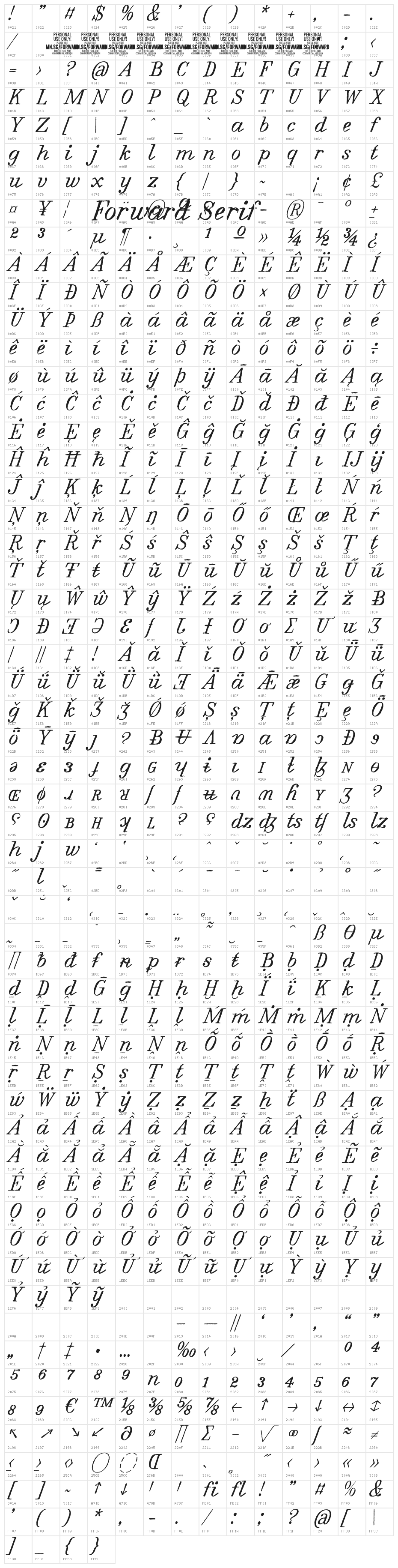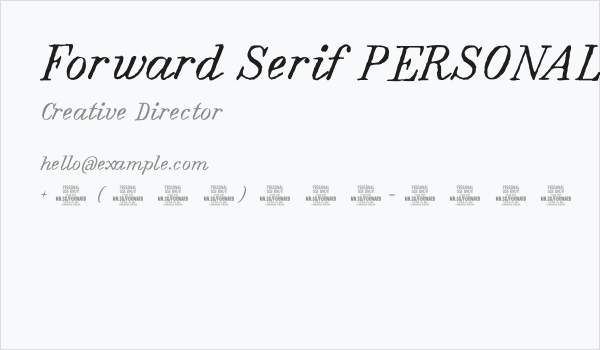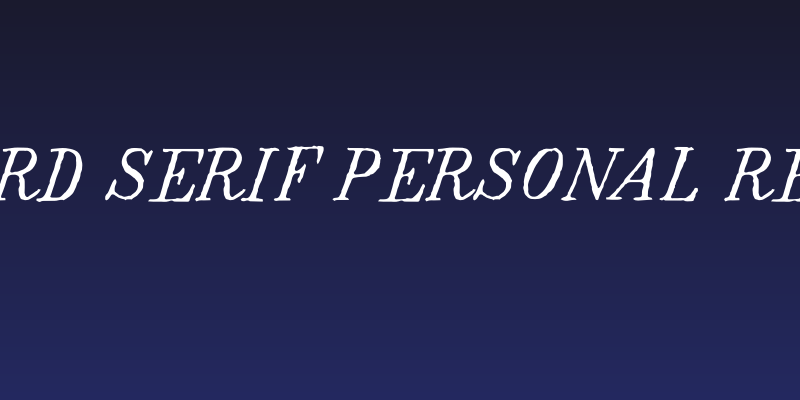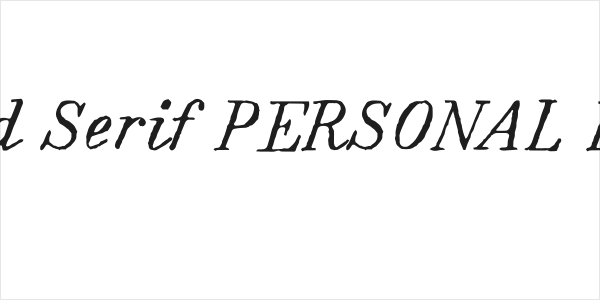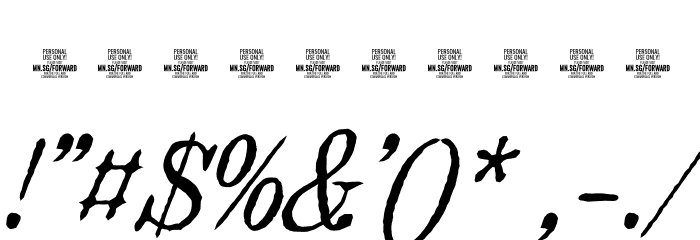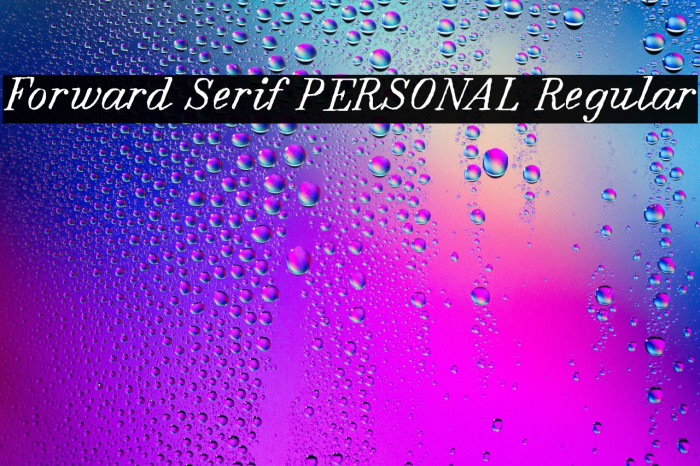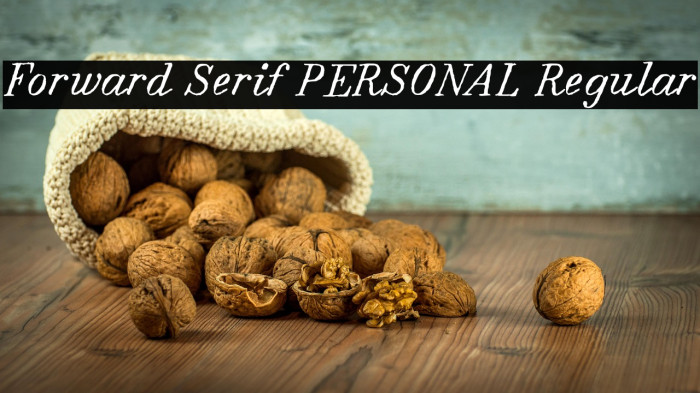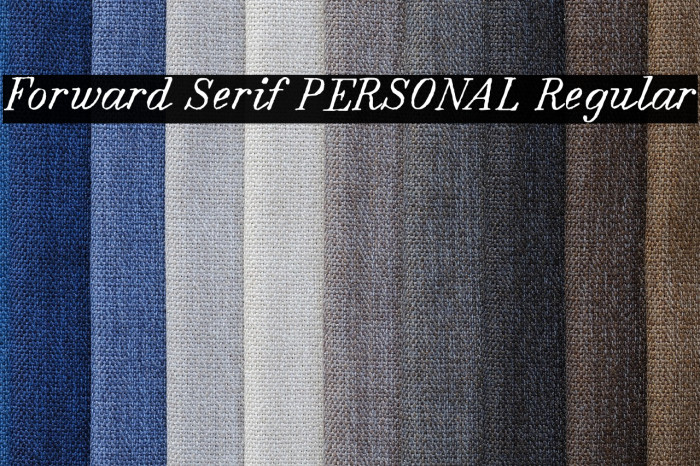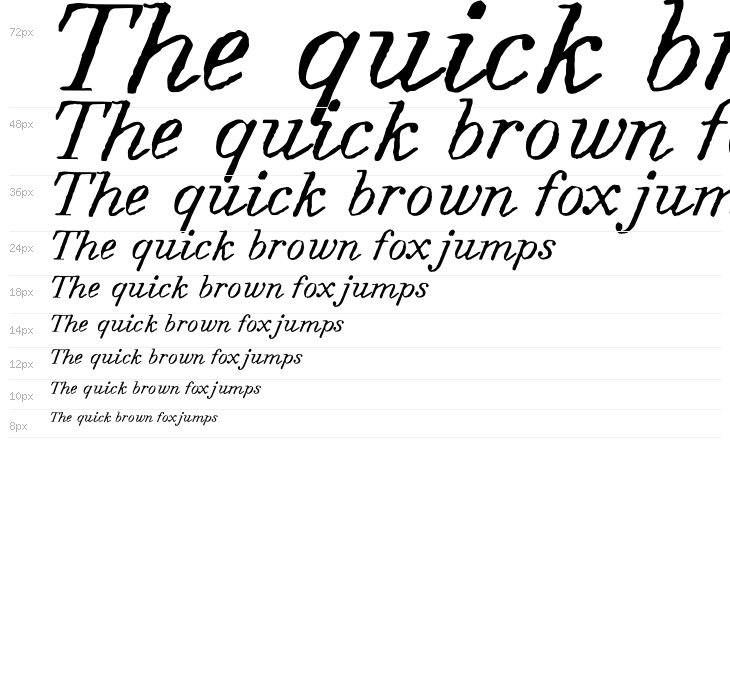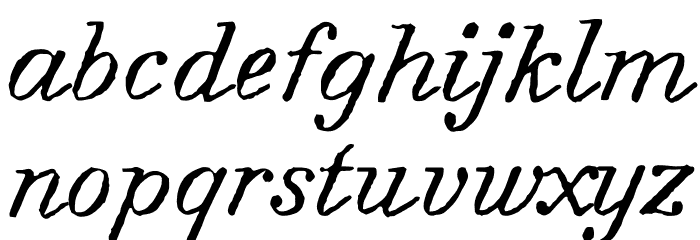
Forward Serif PERSONAL Regular Font
Forward Serif PERSONAL Regular Description
This font features a distinctive serif style with a classic and elegant appearance. The uppercase letters are bold and slightly condensed, giving them a strong presence. The lowercase letters maintain a consistent flow with a slight slant, adding a touch of sophistication. The numerals are clear and well-defined, complementing the overall aesthetic. Special characters are designed with attention to detail, ensuring they integrate seamlessly with the rest of the typeface. The font's contrast is medium, with noticeable variations in stroke thickness that enhance readability while maintaining a stylish look.
| Proposed Projects | Ideal for formal invitations, branding projects, editorial design, and elegant packaging. |